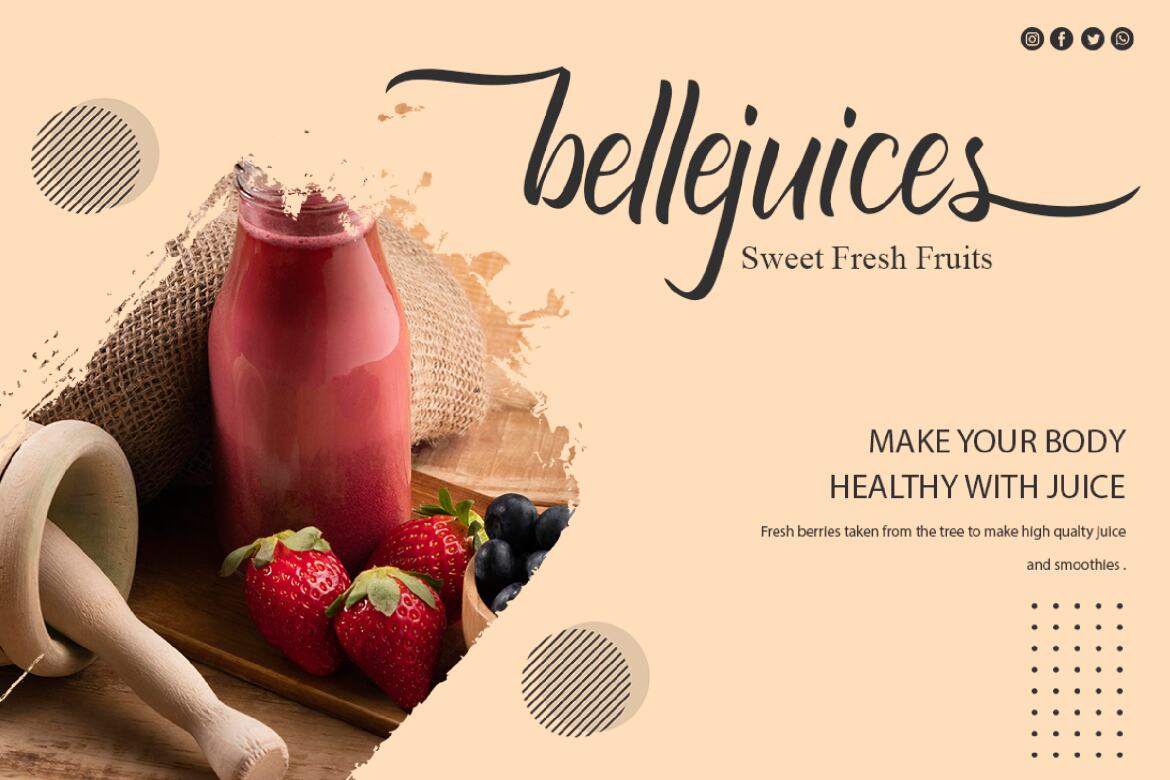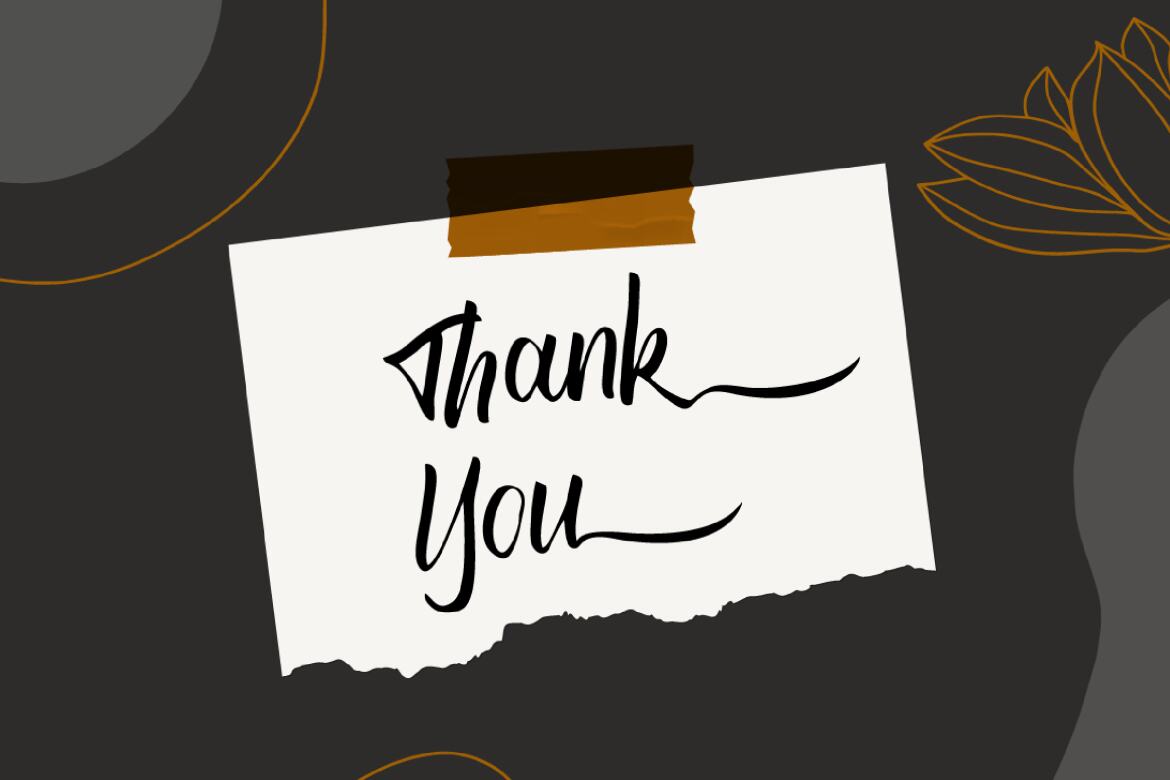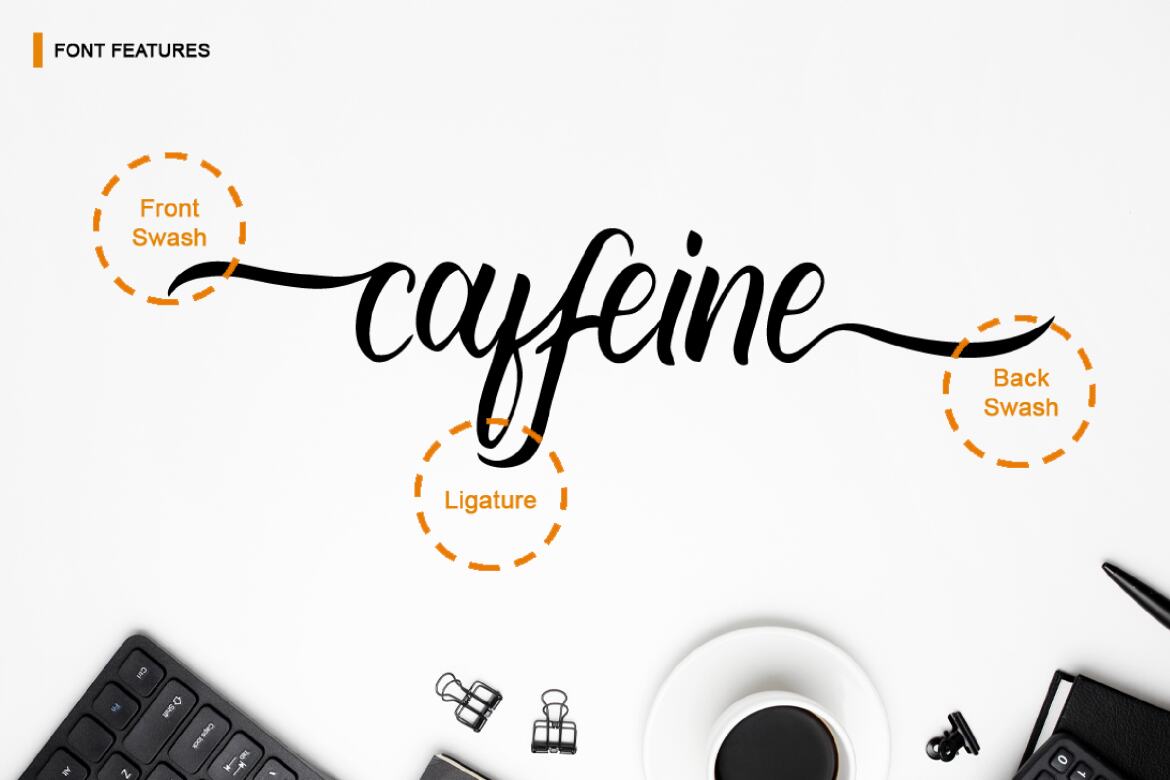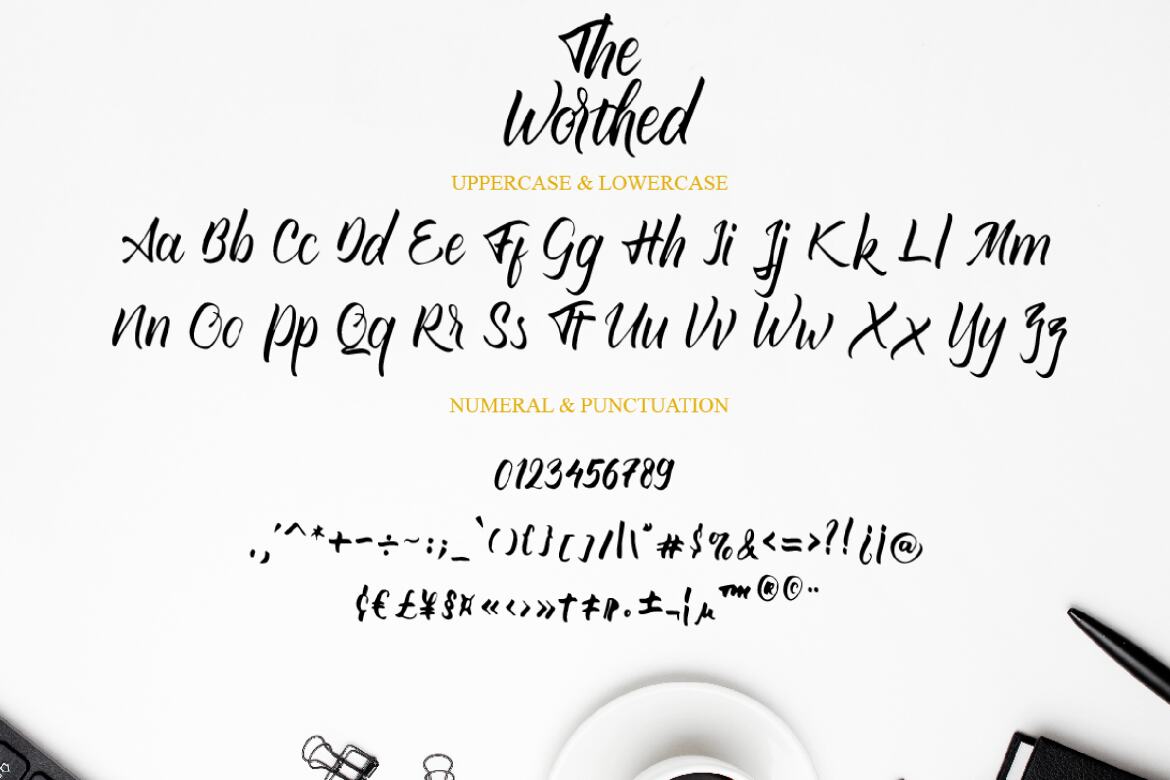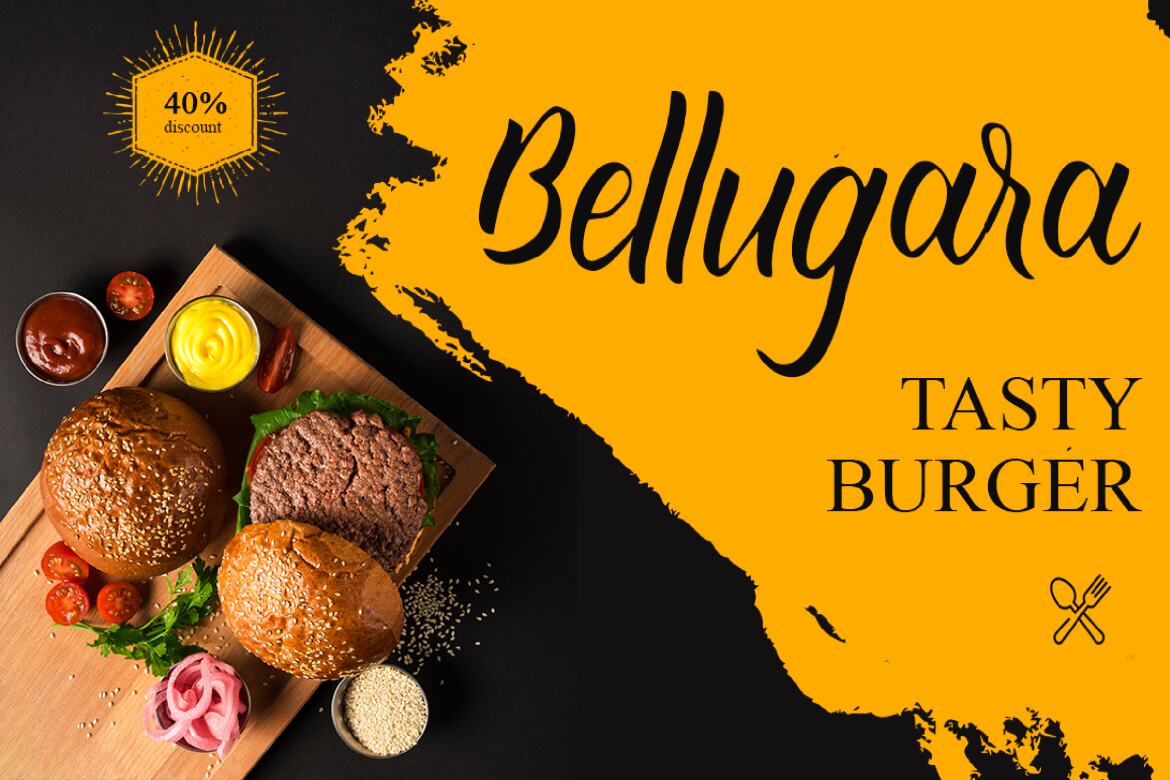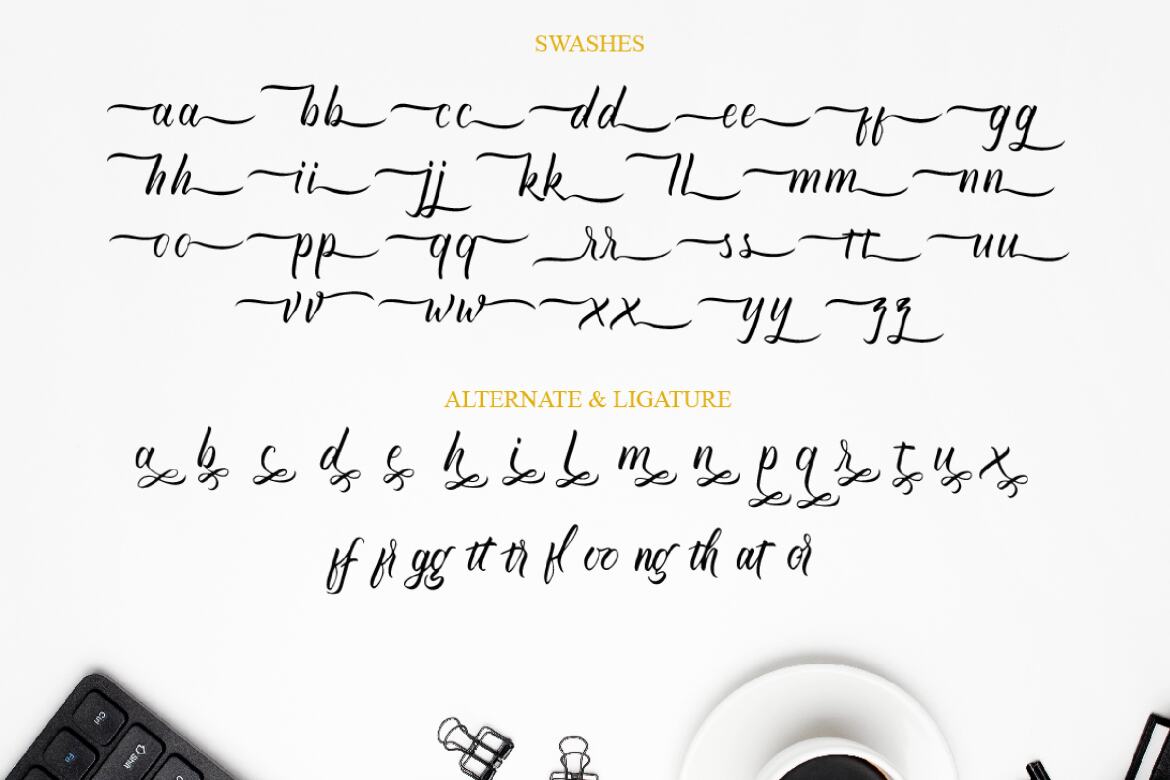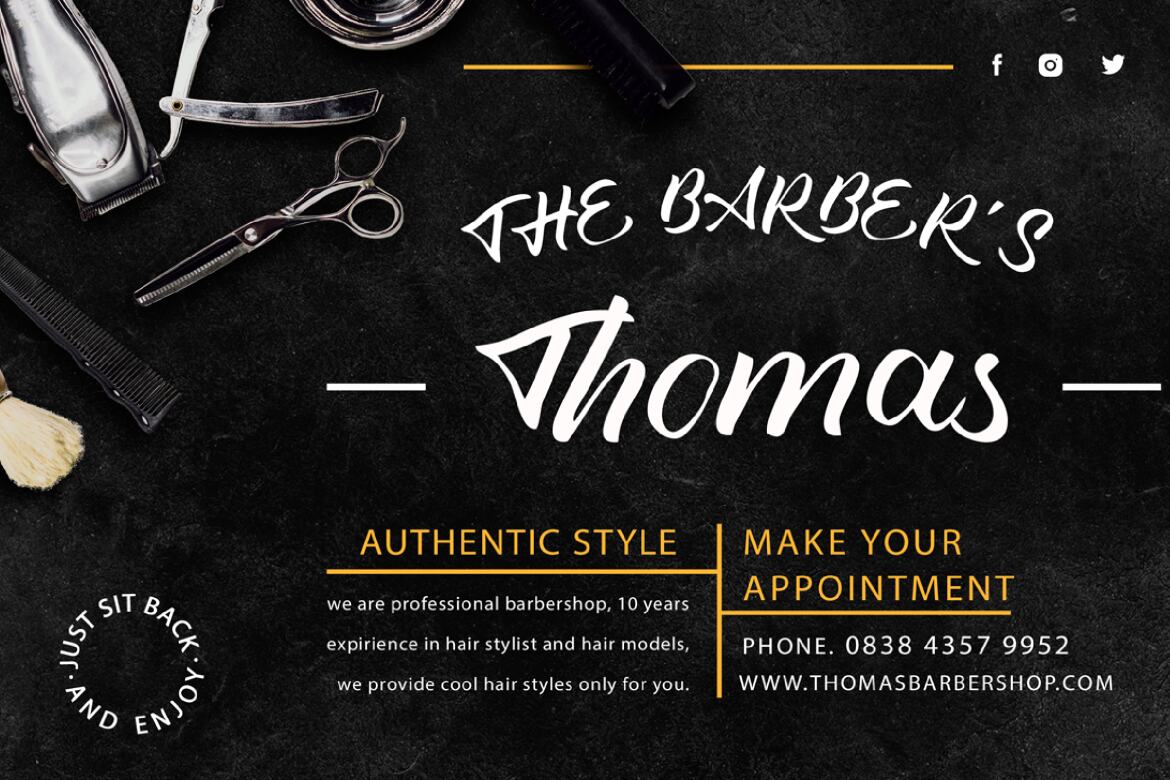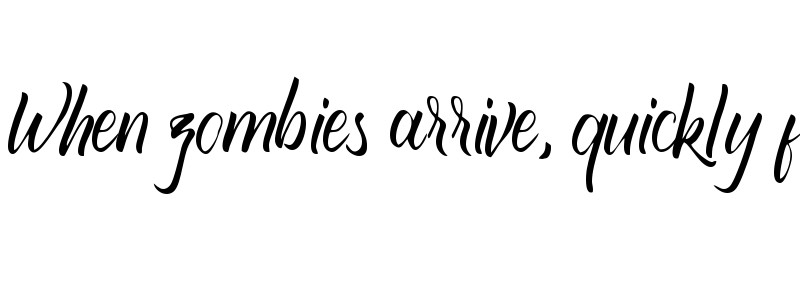
The Worthed - Free Handwritten Font
The Worthed
The Worthed is a supercharged, street-wise bold font bursting with energy. With extra attention to quick strokes and sharp details, The Worthed is guaranteed to deliver an unapologetically loud & fast-paced message; ideal for logos, apparel, quotes, product packaging, or anything which needs a typographic turbo-boost.
• international language
• numeral, punctuation, & ligatures
• swashes & stylistic alternates